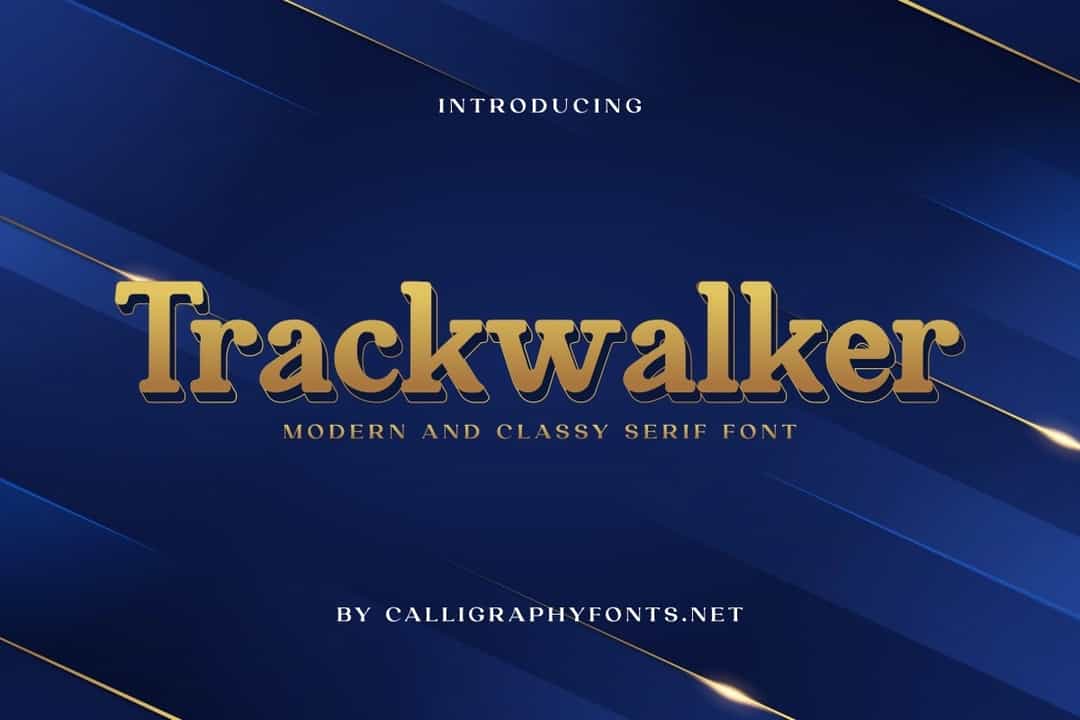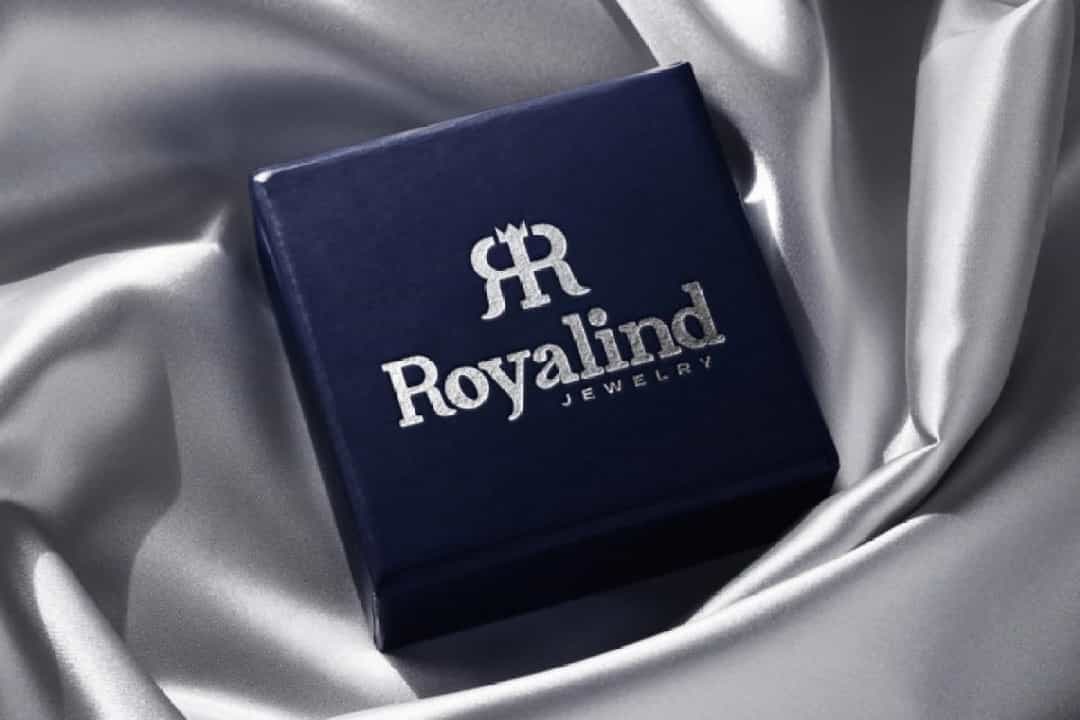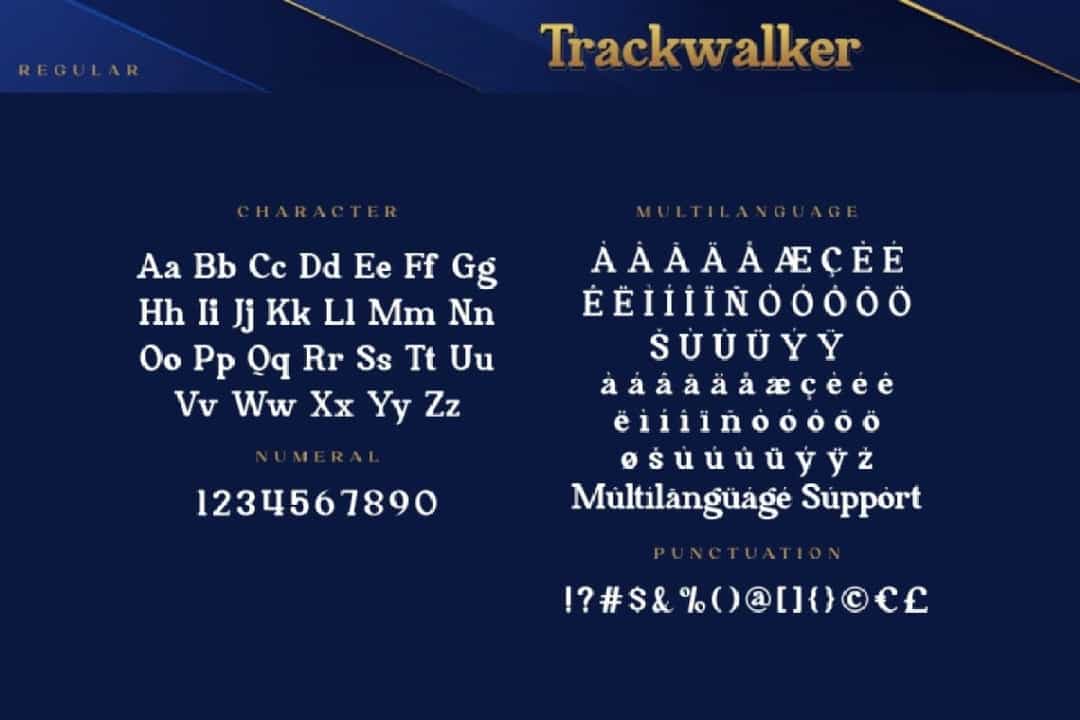
Discover Trackwalker Font, part of the Serif Slab Serif collection—a versatile and unique font perfect for adding a personal touch to your projects. Download it for free and enjoy crafting designs with style, from invitations to social media posts. This font is available exclusively for personal use, giving you the freedom to create without limits. Unlock your creativity with Trackwalker Font today!
Trackwalkeris is a serif font designed by CalligraphyFonts exclusively and available in two styles – regular and italic. This font can be found across industries including boutique, cosmetics author cosmetics craft jewelry fashion publishing or anything that requires an elegant appearance.